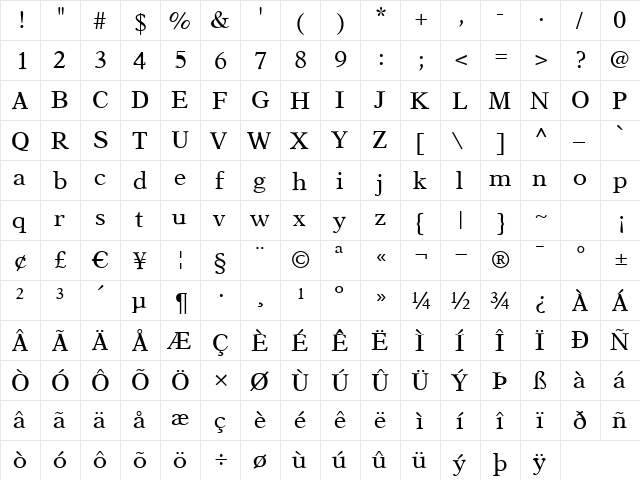
A831-Roman Regular
Design Context for A831-Roman Typeface
A831-Roman takes a measured approach to typography — its balanced proportions and neutral character make it a reliable workhorse for both digital and print work.